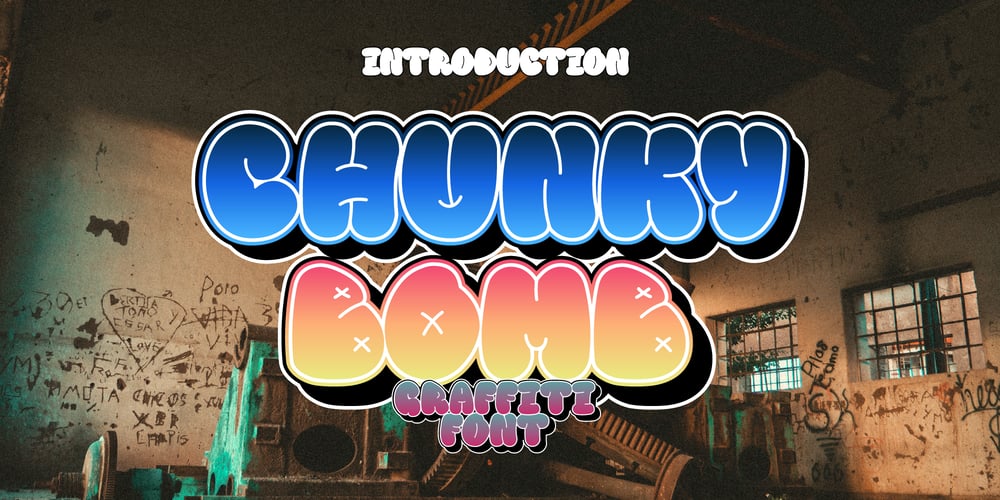
Chunky Bomb Font Family was designed by Mugi Raharjo and published by Nian Keun Studio. Chunky Bomb contains 3 styles and family package options. Chunky Bomb is a versatile graffiti font that combines the playful and bubbly aesthetics of bubble styles with an old-school twist. This decorative font brings a sense of nostalgia and urban charm to your design projects. Each character in Chunky Bomb features a bubble-like appearance.Its adaptability and versatility make it suitable for a wide range of design projects, enabling you to elevate your branding, headings, invitations, logotypes, wall art illustrations, labels, and more to new levels of creativity